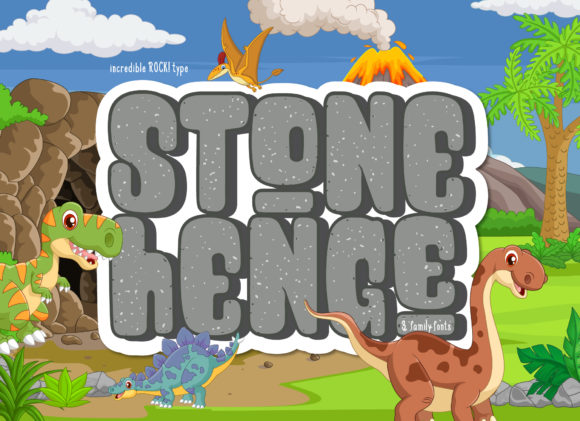
Unleash the raw, untamed spirit of your brand with Stone Henge Font, the ultimate display typeface inspired by the enigmatic allure of ancient megaliths. Its bold, robust strokes are like a thunderclap, commanding attention and leaving an indelible mark on your audience's minds.
Break free from the mundane and embrace the extraordinary with Stone Henge Font. This display font is not just a collection of letters; it's a testament to the power of individuality, a declaration of your brand's unique identity.
Picture your brand adorned with the distinctive charm of Stone Henge Font, a font that embodies strength, determination, and the unwavering spirit of nature. Your products, your messaging, your entire brand identity will radiate an aura of authenticity and distinction.
Step into the realm of imagination and let Stone Henge Font transform your creative visions into palpable realities. Whether it's your e-commerce store, social media presence, or marketing materials, Stone Henge Font will elevate your brand to new heights, capturing the hearts and minds of your customers.
Stone Henge Font is not just a font; it's an experience. It's a journey into the heart of your brand, a quest for individuality and excellence. With every letter, every word, every design, Stone Henge Font will amplify your brand's message and leave an imprint that time cannot erase.